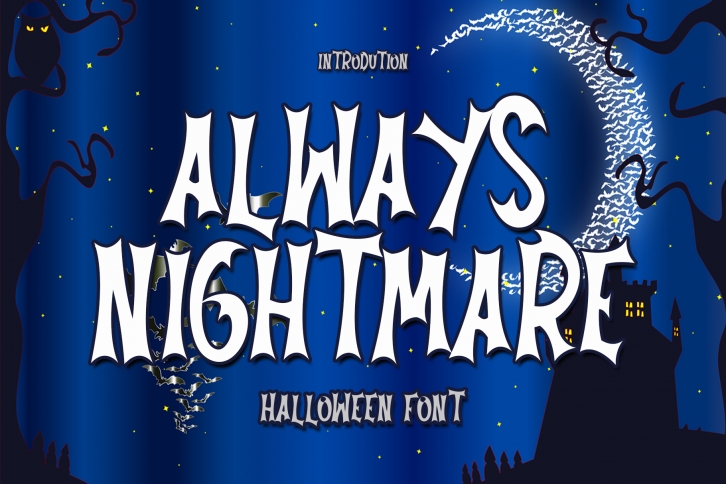
Always Nightmare is a cool, fun-looking, and quirky display font. No matter the topic, this font will be an incredible asset to your fonts’ library, as it has the potential to elevate any creation!